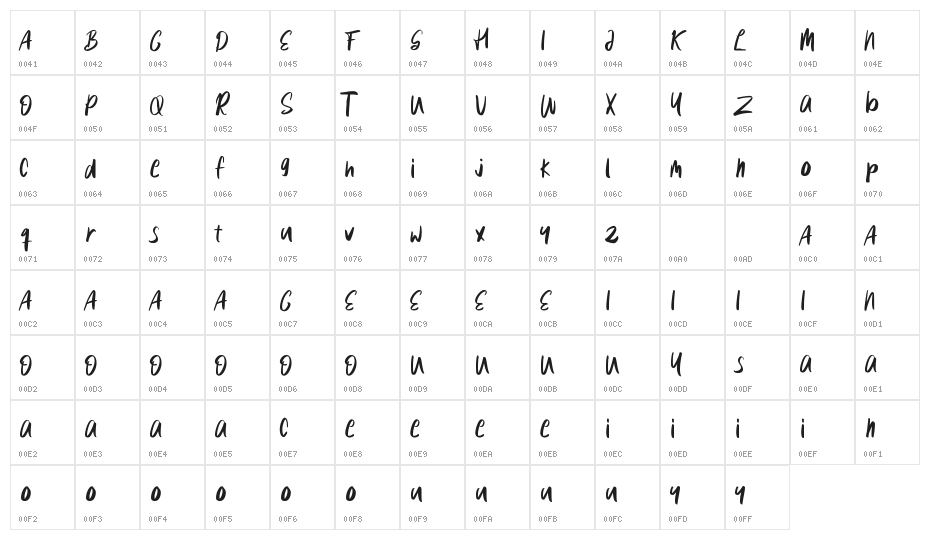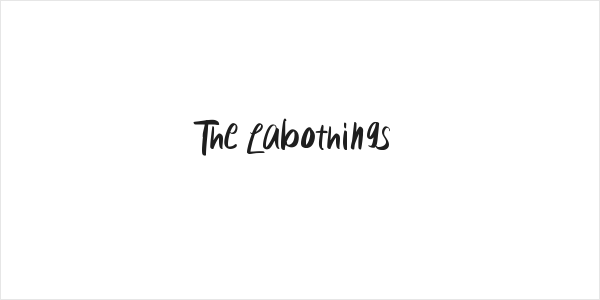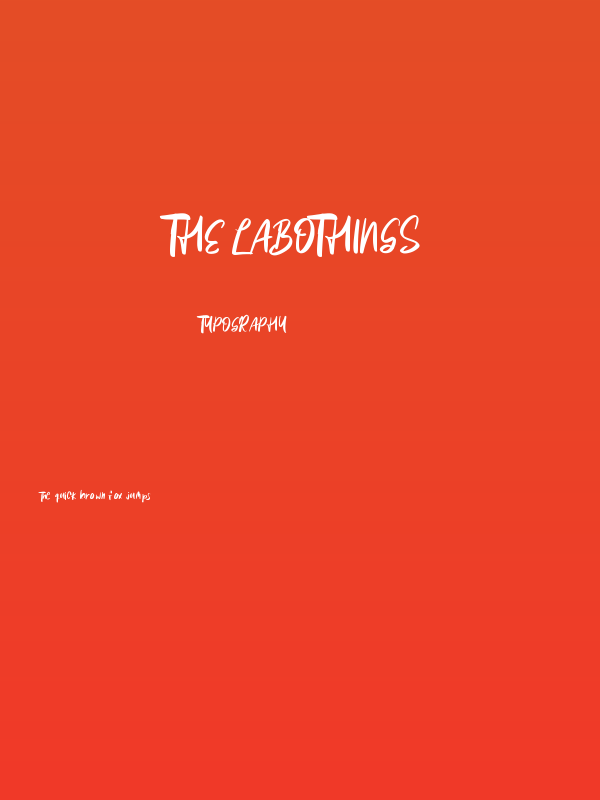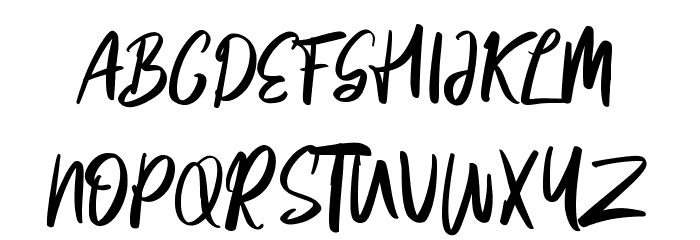
The Labothings Font
The Labothings Description
This font features a bold and expressive handwritten style, characterized by its fluid strokes and dynamic curves. The letters are slightly slanted, giving a sense of motion and energy. The uppercase and lowercase letters maintain a consistent style, with the uppercase being slightly larger and more pronounced. The font's design is playful yet sophisticated, making it suitable for a variety of creative applications. The characters are well-spaced, ensuring readability while maintaining the artistic flair. This font is ideal for projects that require a personal touch, such as invitations, greeting cards, or branding materials.
| Use Case | Logos, Headlines, Creative projects |
| Proposed Projects | Ideal for invitations, greeting cards, branding materials, and creative projects. |